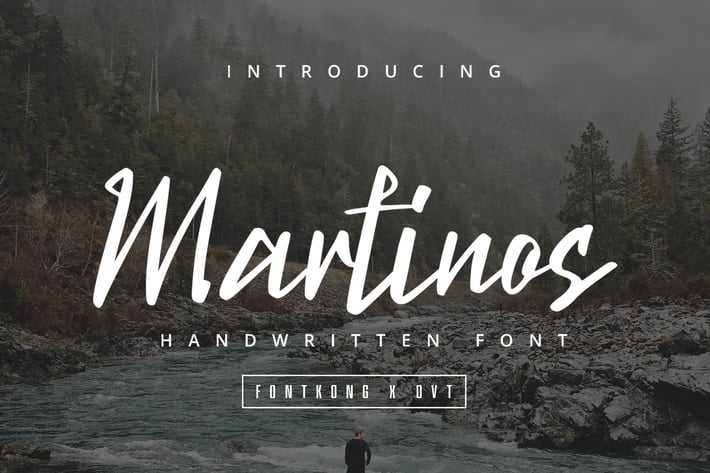
Martinos - Handwritten Font
Introducing "Martinos," a handwritten font that adds a personal and timeless touch to your design projects. Perfect for graphic designers, typographers, and creatives who seek to infuse their work with the warmth and authenticity of hand-drawn lettering, Martinos offers a charming and approachable aesthetic.
Ideal for wedding invitations, greeting cards, social media graphics, and branding materials, Martinos’s smooth curves and natural strokes provide a welcoming and heartfelt look. Each character is meticulously crafted to capture the essence of genuine handwriting, ensuring your designs resonate with a personal and unique touch.
The "Martinos" font includes a complete set of uppercase and lowercase letters, numbers, punctuation marks, and a selection of ligatures and stylistic alternates. This versatility makes it perfect for a wide range of design applications, from elegant invitations to friendly branding efforts.
Add a personal and timeless charm to your designs with Martinos, a handwritten font that embodies the beauty of authentic handwriting.